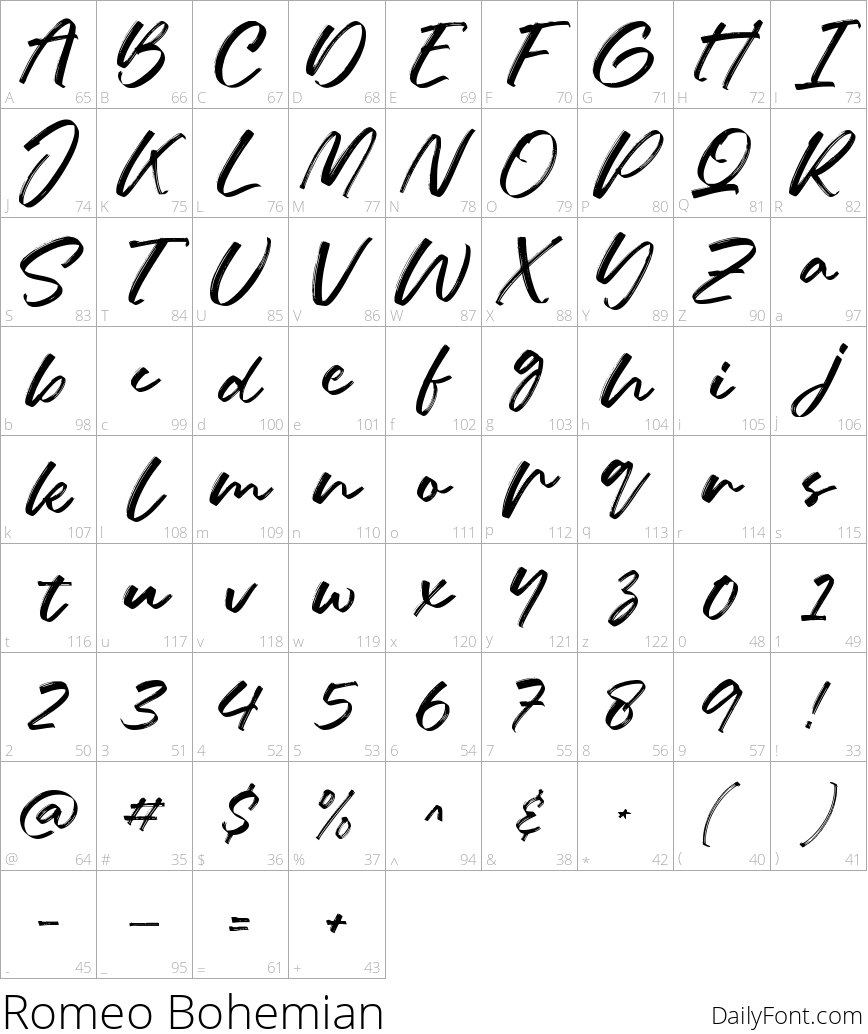
Romeo Bohemian
Introducing Romeo Bohemian, a stunning brush textured script font that captures the essence of creativity and elegance. This versatile typeface is designed to enhance your branding projects, product packaging, and magazine layouts with its fluid strokes and vibrant character. Whether you are crafting invitations, social media posts, or personal projects, Romeo Bohemian adds a touch of sophistication that is sure to resonate with your audience.
Ideal for weddings and special events, Romeo Bohemian's artistic flair allows your words to dance gracefully across any backdrop. This font not only communicates your message but also conveys a sense of style and individuality. With its balance of readability and artistic flair, it’s perfect for designers looking to make a lasting impression. Transform your visual narratives and make your designs stand out with Romeo Bohemian, where each letter tells a story.